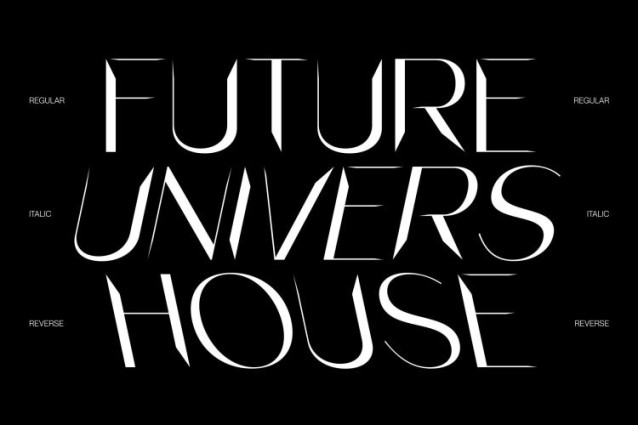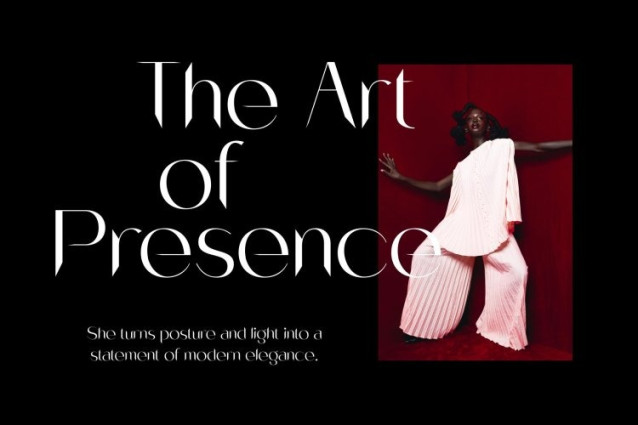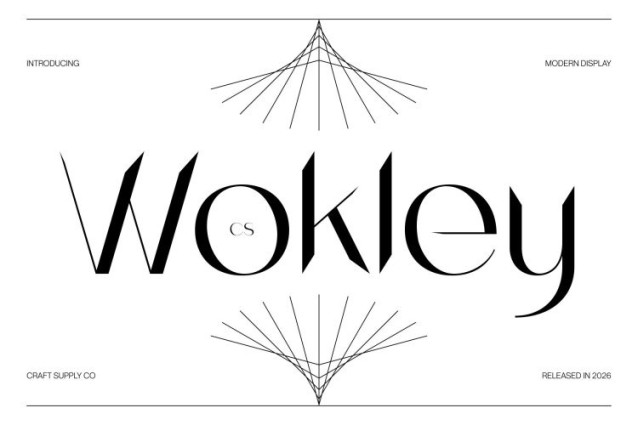
CS Wokley Font
CS Wokley Font This is a modern sans serif font designed with high contrast that immediately sets it apart. The contrast between thick and thin strokes creates a fresh, distinctive look while maintaining a clean and contemporary structure. This design approach gives the font a refined presence that feels modern, confident, and visually striking.
Sharp Angles with Confident Character
The sharp angles and precise details of add a sense of strength and clarity to every letterform. These angular elements contribute to a bold yet elegant personality, allowing the font to communicate confidence and professionalism. The clean construction ensures readability while delivering a premium, high-end impression.
Luxurious Feel with Modern Precision
This font combination of high contrast and sharp geometry gives it a luxurious tone without being overly decorative. It feels stylish and sophisticated, making it an excellent choice for designs that aim to appear polished, modern, and fashion-forward. The font balances visual drama with refined simplicity.
Perfect for Branding and Creative Design
Ideal for branding, magazines, logos, social media design, and creative projects, performs beautifully in both headlines and display settings. Whether used in editorial layouts, digital branding, or promotional visuals, it delivers a clean, confident, and luxurious typographic presence that elevates modern design.